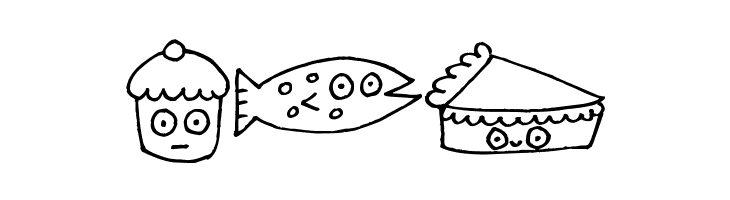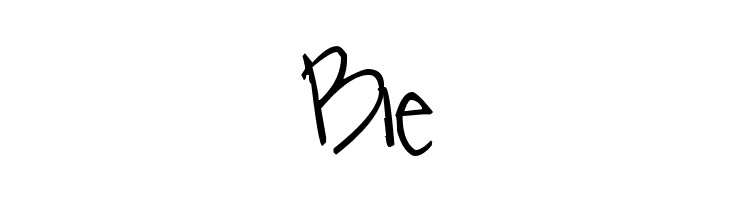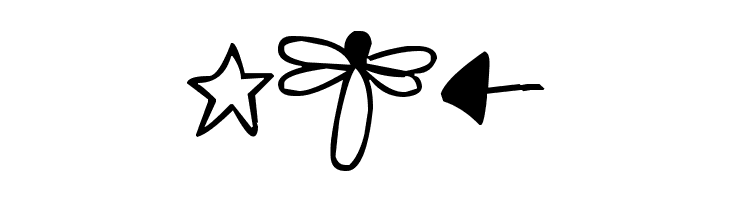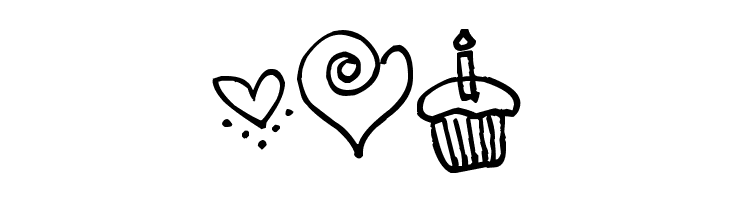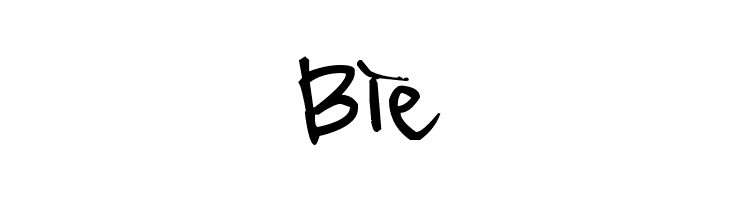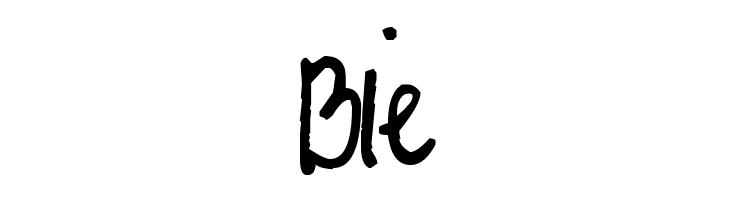
A playful, handwritten font with doodle-like symbols and a casual, friendly style.
A playful, informal handwritten font with whimsical letterforms.
A playful, handwritten font with bold, expressive strokes and a casual style.
A playful, handwritten font with a casual and dynamic style.
A whimsical collection of playful doodle-style illustrations.
A playful, handwritten font with a casual and dynamic style.
A playful, casual handwritten font with irregular strokes and a personal touch.
A playful and whimsical collection of hand-drawn doodles with bold strokes.
A playful, casual handwritten font with uneven strokes and a spontaneous feel.
A whimsical doodle font with playful, hand-drawn symbols and icons.